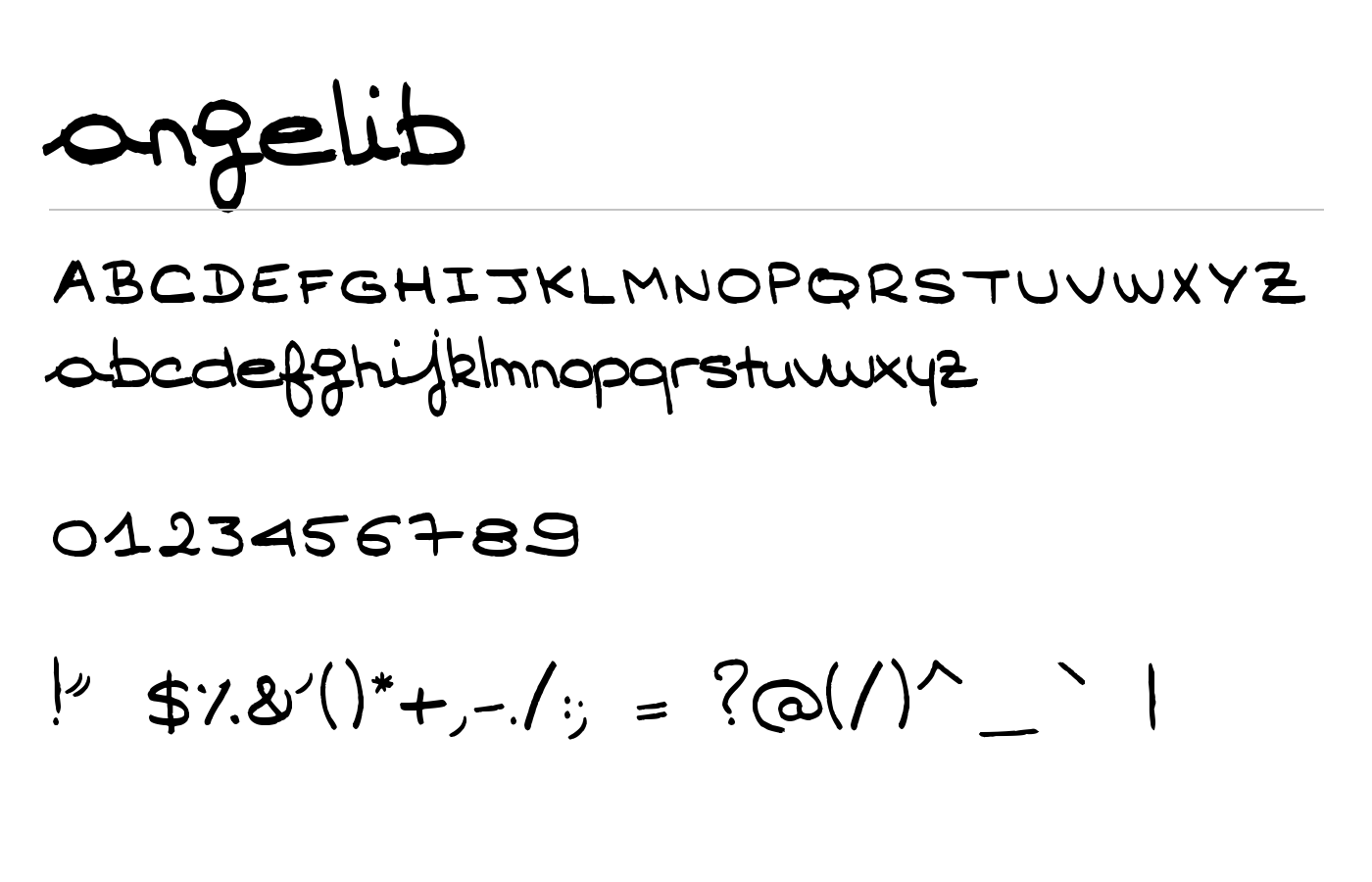
Angelib is a playful, casual handwritten sans serif font with irregular, organic letterforms that give it a friendly and approachable feel. Its light weight and uneven strokes make it ideal for creative projects, informal branding, and designs seeking a personal touch. This font works well in children's books, greeting cards, or any context where a warm, human element is desired.
angelib Font
About angelib Font